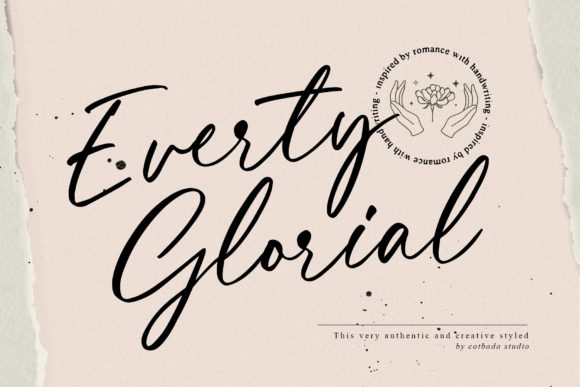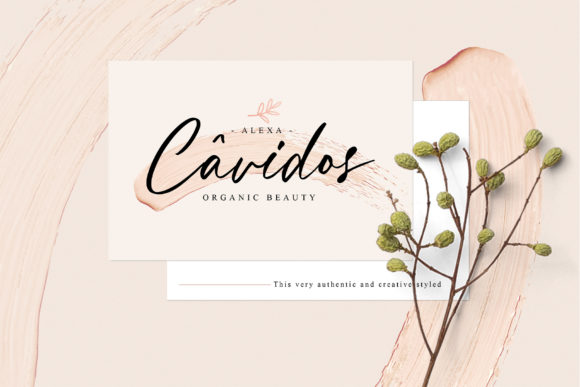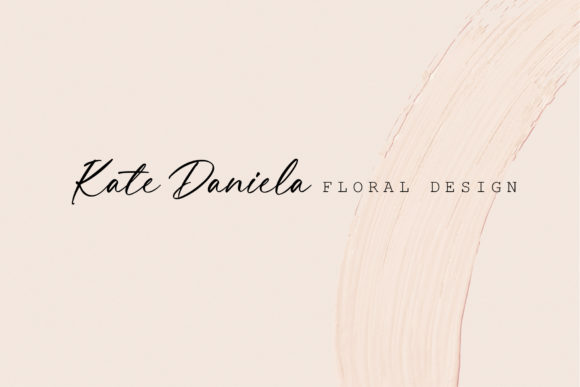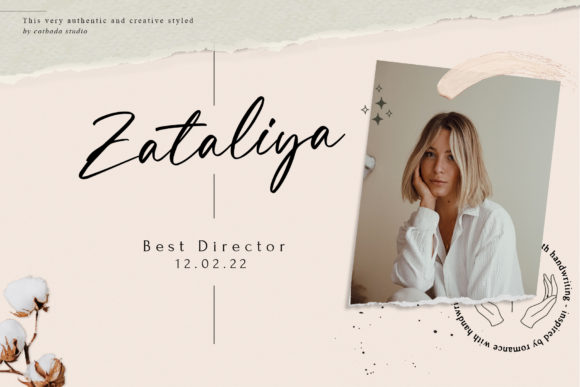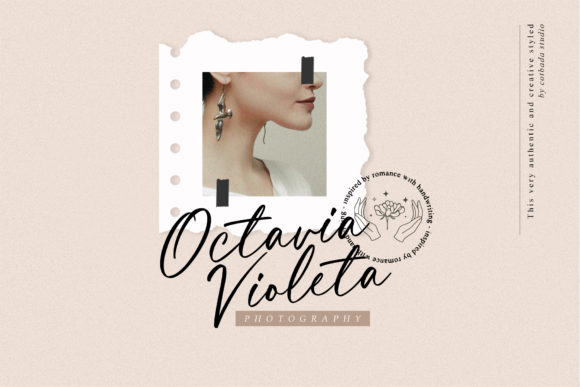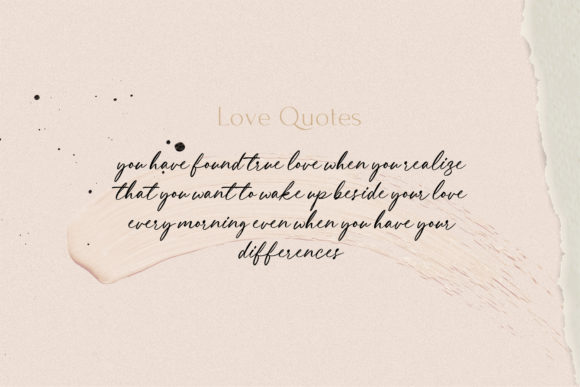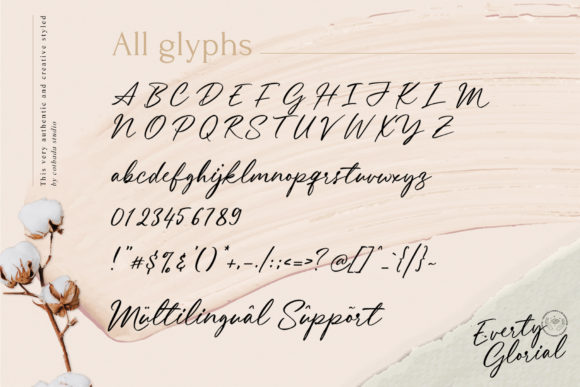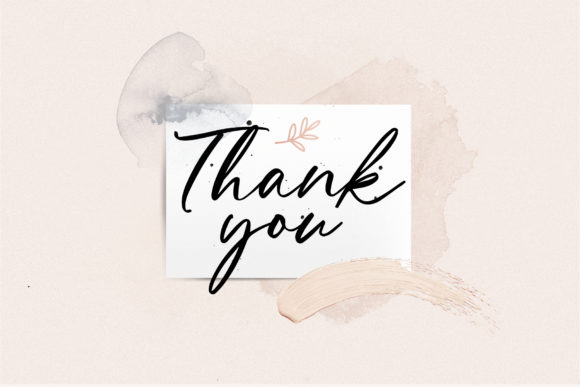
Everty Glorial Font
About Everty Glorial Font
Everty Glorial Font Script is a genuine and modern handwritten font that exudes freshness and authenticity. With its carefully crafted letterforms and contemporary style, this font is designed to become a true favorite among designers and creatives.
The uniqueness of Everty Glorial Font Script lies in its ability to capture attention and create a lasting impression. Each letter is masterfully designed, incorporating fluid strokes and dynamic curves that give the font a sense of liveliness and energy. The result is a font that stands out and adds a touch of modernity to any project.
This font is perfect for a wide range of creative ideas. Whether you’re designing logos, branding materials, posters, invitations, or social media graphics, Everty Glorial Font Script has the versatility to elevate your designs to the highest level. Its contemporary and fresh style brings a sense of innovation and originality to your creative projects.
The legibility of Everty Glorial Font Script is also worth mentioning. Despite its handwritten appearance, each letter is carefully crafted to ensure clear and easy readability. This makes the font suitable for a variety of applications, from large headlines to smaller body text. You can confidently use it in various design elements without sacrificing clarity and understanding.
In conclusion, Everty Glorial Font Script is a genuine, fresh, and modern handwritten font that brings a contemporary and authentic touch to your designs. With its carefully crafted letterforms, versatility, and legibility, this font has the potential to elevate each of your creative ideas to the highest level. Embrace the unique and modern aesthetic of Everty Glorial Font Script and watch as it adds a distinct charm to your design projects.